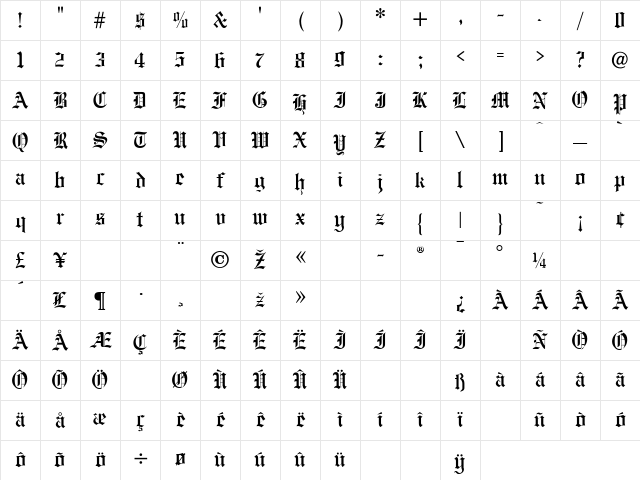
EngraversOldEnglish Regular Free Font
EngraversOldEnglish Regular
Foundry: Digitized by Dan X. Solo. Software by Dover Publications, Inc
Design Context for EngraversOldEnglish
EngraversOldEnglish is a composed and adaptable typeface that performs quietly and consistently across a wide range of design contexts.
Who designed the EngraversOldEnglish Regular font?
This font was published by Digitized by Dan X. Solo. Software by Dover Publications, Inc. Check the technical specs section for copyright and designer details.